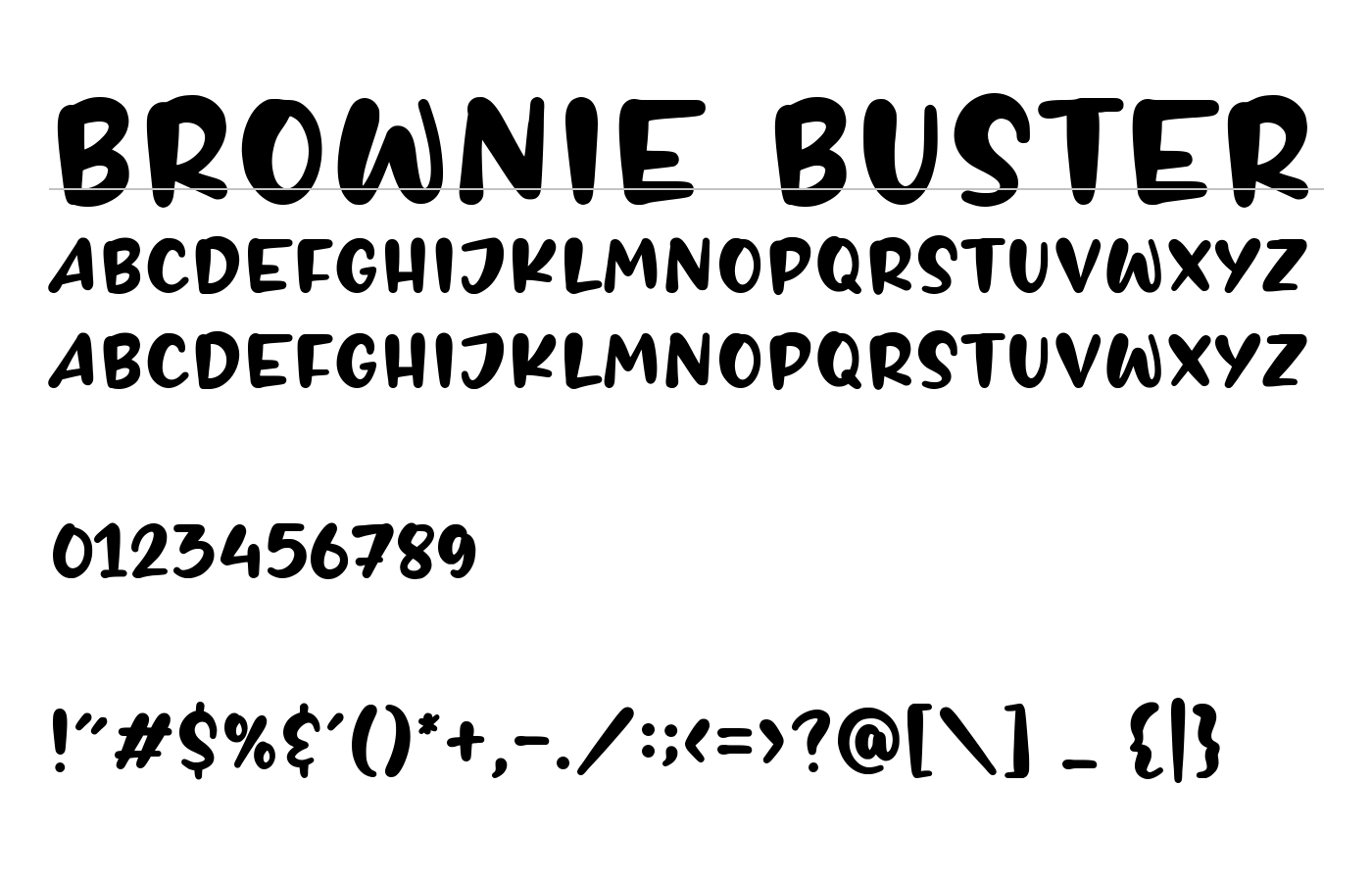
Brownie Buster is a playful, casual sans serif font with a hand-drawn feel, featuring bold and rounded letterforms that convey warmth and friendliness. Its lively, slightly irregular strokes make it ideal for fun, informal branding, children's materials, and eye-catching headlines, adding a personal, approachable touch to any design. This font works well wherever a cheerful, energetic vibe is desired.
BROWNIE BUSTER Font
About BROWNIE BUSTER Font